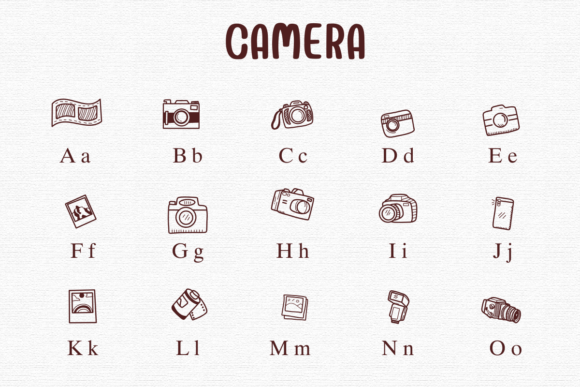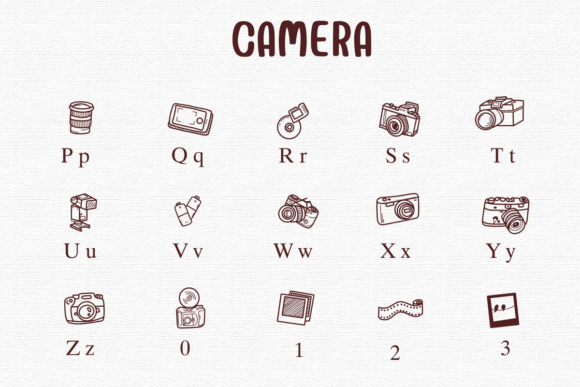
Camera Font
Camera is a fun and detailed dingbats font full of camera illustrations—everything from vintage film gear to modern smartphones and accessories. It’s perfect for photography logos, scrapbooking, memory books, and creative branding for camera lovers.